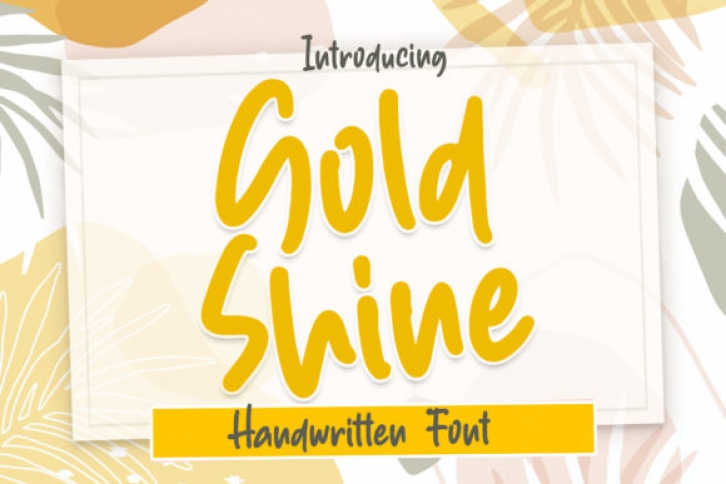
Gold Shine is a cute and quirky handwritten font. It will add an incredibly joyful touch to your designs. Add this beautiful font to each of your creative ideas and notice how it makes them stand out!